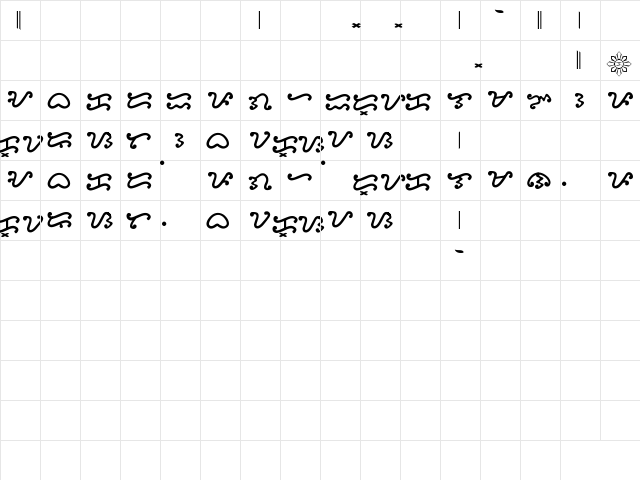
Baybayin Modern Block Regular
Design Context for Baybayin Modern Block Typeface
Baybayin Modern Block is a composed and adaptable typeface that performs quietly and consistently across a wide range of design contexts.
Pro Tip: Use Baybayin Modern Block in both headline and body roles to test its range before committing to a single application.